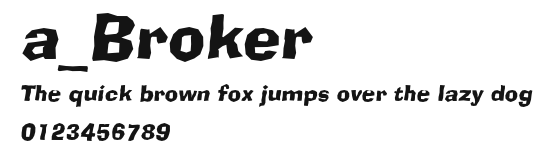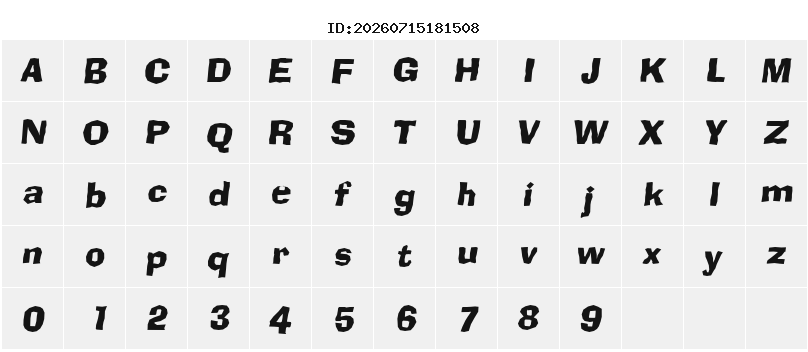
• Font Name: a_Broker
• Full Font Name: a_Broker Italic
• Designer: W.Chufarofsky & M.Slutsker
About a_Broker.ttf
a_Broker.ttf is a modern, elegant sans-serif font designed for ultimate readability and visual harmony. Perfect for branding, headlines, web design, and print materials.